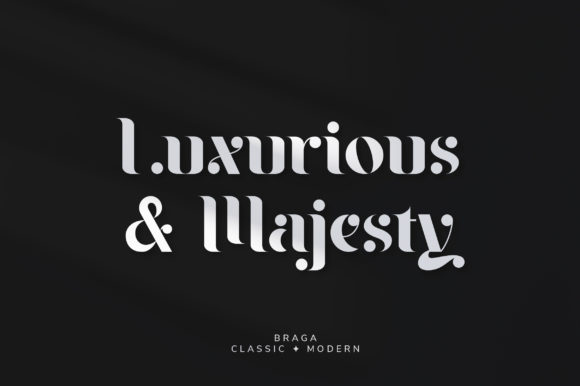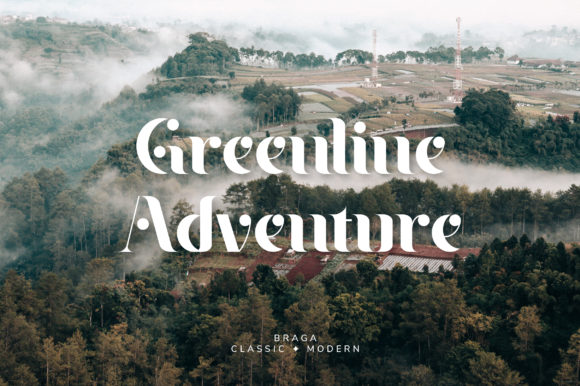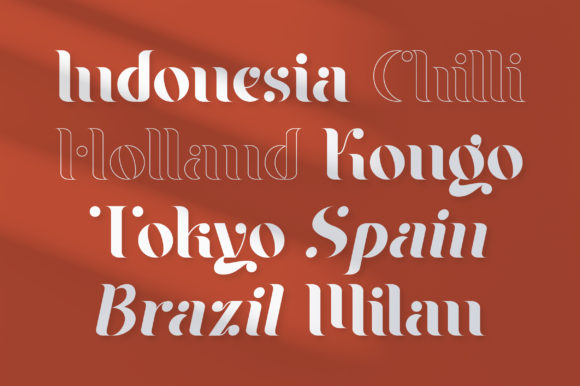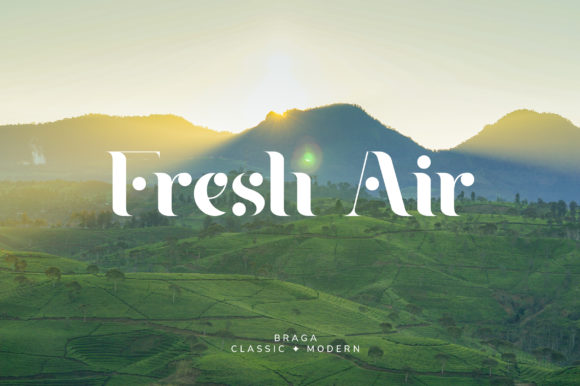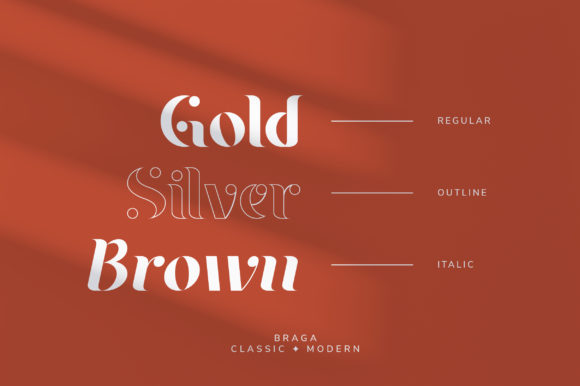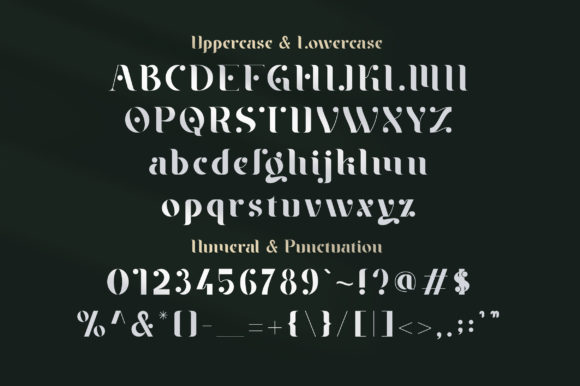
Discover the Timeless Elegance of Braga Font
Have you ever been browsing through a design inspiration board, and suddenly, a particular font catches your eye, leaving you in awe of its sophistication and charm? That’s exactly what happened to many designers when they stumbled upon Braga Font. This stunning serif font has been making waves in the design community with its classy and trendy style, making it a go-to choice for creating stunning visual content.
Braga Font is more than just a font – it’s a tool for designers to elevate their creative projects and make a lasting impression. Whether you’re designing beautiful wedding invitations, crafting stunning social media posts, or creating eye-catching stationary art, Braga Font is sure to be a valuable addition to your design arsenal.
- Unique Characteristics: Braga Font features a unique blend of modern and traditional elements, with a distinctive flair that sets it apart from other sans-serif fonts.
Braga Font Review
I recently had the chance to work with the Braga Font, and I must say it’s been an interesting experience. Here are my thoughts on what works well and what doesn’t.
- The Braga Font has a unique and modern design that makes it perfect for creative projects.
- It’s highly legible, making it great for body text and longer passages of text.
- The font is highly customizable, with a wide range of weights and styles to choose from.
- The Braga Font may not be suitable for formal or traditional projects, as its modern design may not fit with the tone.
- The font can be a bit too ornate for certain projects, making it difficult to read in smaller sizes.
- The font family is relatively small, with only a few weights and styles available.
Overall, I think the Braga Font is a solid choice for creative projects, but it may not be the best fit for every project. With its unique design and high level of customization, it’s perfect for designers who want to add a touch of modernity to their work. However, its limitations may make it less suitable for formal or traditional projects.
Tips for Getting the Most Out of Braga Font
Use Braga Font for titles and headings to add a touch of elegance and sophistication to your designs. Experiment with different font sizes and colors to create visual interest. Pair Braga Font with other fonts to create a unique and eye-catching design.
Braga Font is ideal for:
- Luxury brand designs
- High-end marketing materials